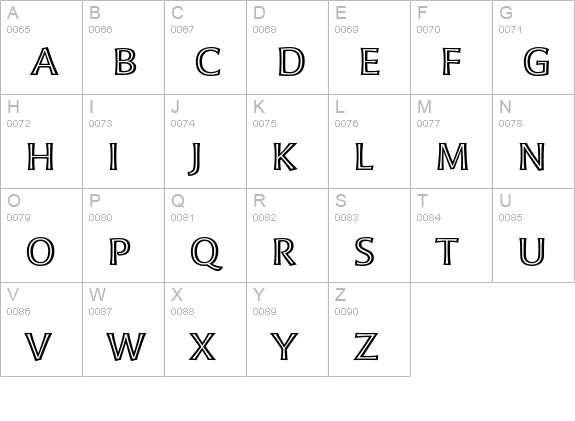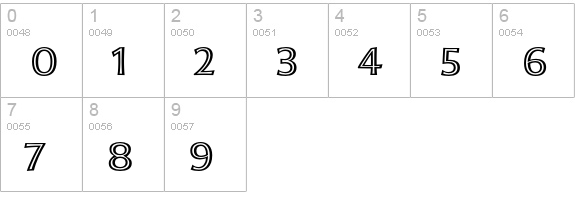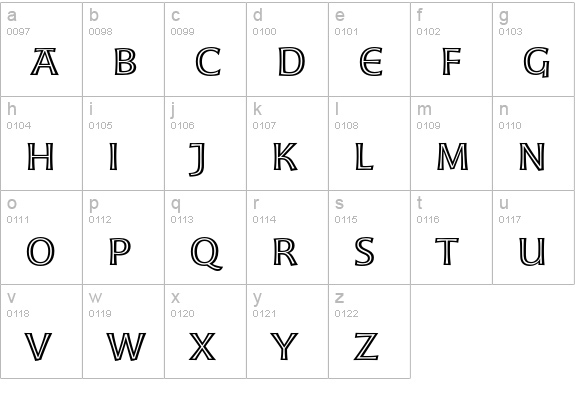
Moonglow Extended is a distinctive, extended-width variant in the Moonglow typeface family \xE2\x80\x94 well suited to design and typography projects.
Moonglow Extended font is a stunning display typeface that exudes elegance and sophistication. With its elongated letterforms and intricate details, this font is perfect for creating eye-catching headlines, titles, and branding materials. The unique design of Moonglow Extended gives a touch of modernity and flair to any project it is used in. The best part is that Moonglow Extended font is available for free download at FontsMarket.com. This means you can easily access this beautiful font and use it in your designs without any cost. Whether you are a graphic designer, a blogger, or a business owner looking to elevate your brand, Moonglow Extended font is a fantastic choice that will surely impress your audience. Unlock your creativity and enhance your projects with the exquisite Moonglow Extended font today!